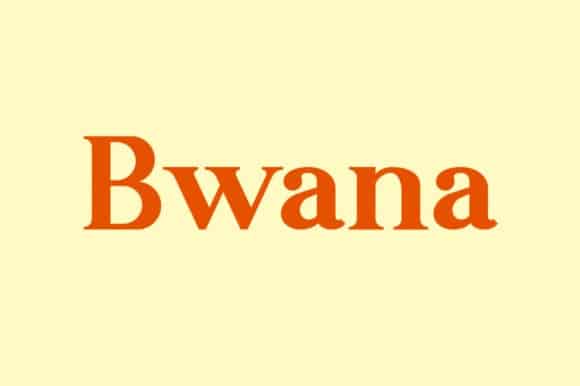
Bwana Serif Font
Bwana Serif Font perfectly represents modern and contemporary era but it’s strong modern appearance. It’s a very versatile font that works great in large and small sizes. And an upper and lowercase serif font with nicely balanced curves.
It is a serif font from the designer AmruID. Bwana is a modern and sweet serif font with a very playful tone. Add it to your creative ideas and notice how it makes them stand out!
Bwana Serif Font matches applies in some designs such as the logotype, brand, packaging, branding, quotes, business cards and more custom design.